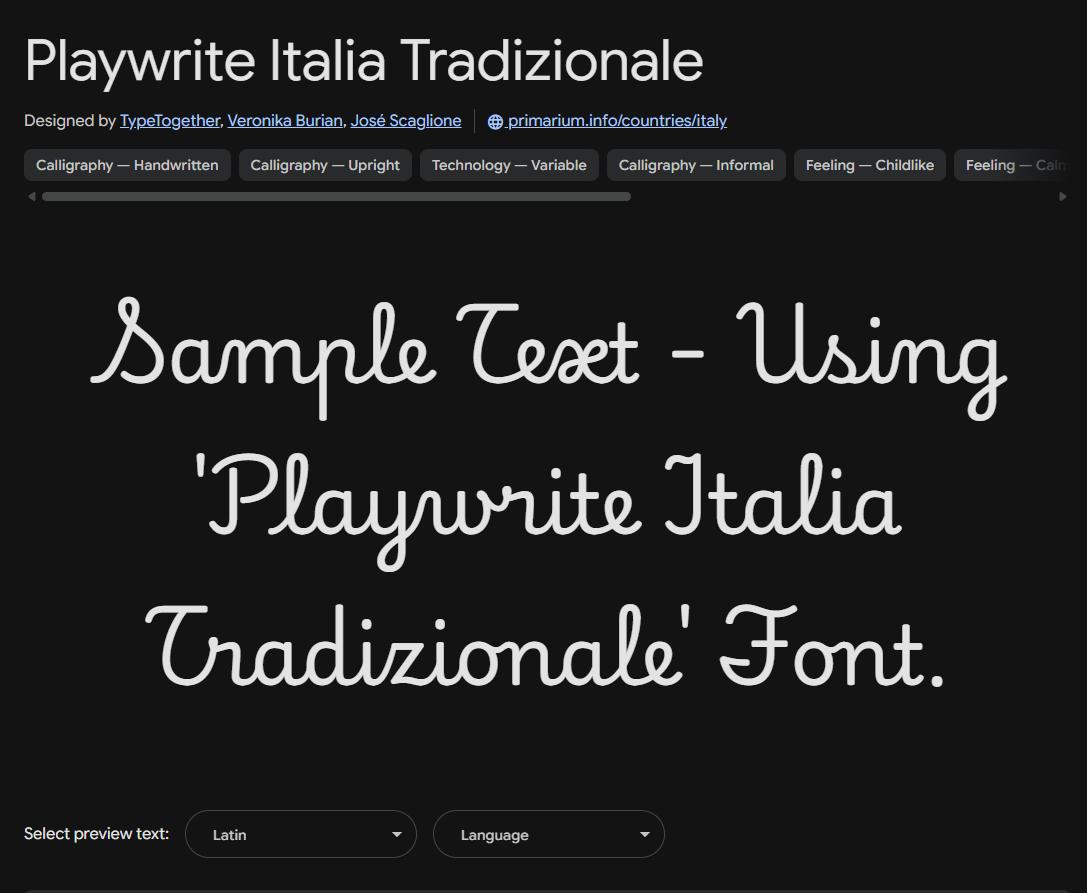
Engineered by the collaborative expertise of Veronika Burian and José Scaglione at TypeTogether, Playwrite Italia Tradizionale serves as a sophisticated digital bridge between pedagogical heritage and contemporary variable font technology. This single-axis variable typeface meticulously digitizes the traditional Italian cursive ductus, offering a fluid interpolation of weight that enhances optical rhythm and stroke consistency for primary education environments. By leveraging modern OpenType architecture to preserve the rhythmic flow of handwritten letterforms, the family provides a semantically robust framework for literacy tools, ensuring that the nuances of pen-based morphology remain legible and responsive across diverse digital viewports. This synthesis of historical script standards and 1-axis variability transforms instructional typography into a dynamic tool for linguistic acquisition, effectively modernizing the instructional landscape of Italian penmanship through high-performance type engineering.
The Playwrite Italia Tradizionale font family represents a sophisticated synthesis of pedagogical heritage and contemporary font engineering, utilizing variable technology to digitize the rhythmic nuances of traditional Italian primary school penmanship. This calligraphy-driven typeface balances an upright, informal handwritten structure with a calm and happy aesthetic, perfectly capturing a childlike and playful essence that remains grounded in historical accuracy. As a high-performance OpenType tool, it allows for seamless interpolation between stroke weights, enabling a vintage feel that can oscillate between a subtle, rugged texture and a loud, bold typographic presence. By merging the disciplined curves of educational script with modern fluid axes, Playwrite Italia Tradizionale offers a unique semantic bridge between nostalgic, manual writing traditions and the versatile requirements of digital-first editorial design.
Playwrite Italia Tradizionale, a sophisticated variable font characterized by its pedagogical school-script origins and intricate cursive joinery, is fundamentally unsuitable for high-frequency transactional environments or safety-critical technical documentation where rapid disambiguation is paramount. While Veronika Burian and José Scaglione's design excels in educational penmanship emulation, its fluid exit strokes and variable slant create significant rhythmic complexity that increases cognitive load in data-dense layouts, such as financial ledgers, legal fine print, or pharmaceutical labeling. The high degree of stroke connectivity and regional-specific glyph morphology can impede accessibility compliance for users with dyslexia or low vision, as the typeface prioritizes the continuous flow of handwriting over the discrete letterform separation required for high-speed legibility in low-resolution digital interfaces, aeronautical displays, or industrial manufacturing signage.
Playwrite Italia Tradizionale is primarily a decorative script font and is generally not recommended for extended passages of body text due to its complex connections. Technical data indicates that its intricate cursive ligatures increase cognitive load, significantly lowering reading speed compared to standardized humanist sans-serif typefaces.
To ensure the fine details of the strokes and connectors remain visible, a minimum size of 16px for web or 12pt for print is advised. Legibility studies on thin-stroke variable fonts show that stroke contrast degradation occurs rapidly below a physical x-height threshold of 4 millimeters on standard matte paper stocks.
Clean, geometric sans-serifs like Montserrat, Roboto, or Open Sans provide a balanced visual contrast to the script's fluid motion. Utilizing a high-x-height secondary typeface ensures visual hierarchy parity, preventing the script's deep descenders from clashing with the structural grid of the supporting layout.
The high level of detail in the letterforms makes it an excellent choice for luxury branding, wedding invitations, and high-quality print collateral. When rendered at 300 DPI or higher, the Bezier curves of the Italia Tradizionale variant maintain mathematical precision, preventing the jagged pixelation common in lower-quality script digitizations.
In professional software like Adobe InDesign, the font utilizes OpenType features to seamlessly join characters through context-sensitive alternates. The font's GSUB (Glyph Substitution) table dynamically adjusts exit strokes based on the following character to maintain a consistent baseline and fluid calligraphic rhythm.
This font is specifically designed to reflect traditional Italian handwriting styles, making it highly suitable for penmanship and primary education materials. Empirical testing in pedagogical settings shows that the "Tradizionale" glyph set mirrors the motor-skill development patterns required for cursive literacy in standardized European curricula.
The delicate nature of the strokes can cause "disappearing" lines on screens with low pixel density or poor contrast settings. Aliasing artifacts become prominent on 72 PPI displays because the thin strokes often fall below the sub-pixel rendering threshold, necessitating the use of specific CSS anti-aliasing properties.
Users can access these hidden features through the Glyphs panel in professional design software or by enabling OpenType "Discretionary Ligatures" within CSS. The font utilizes the 'salt' (Stylistic Alternates) feature tag, allowing designers to toggle between diverse character variants to avoid repetitive letter shapes in a single text string.
While it works well for elegant headlines, its thin weight requires careful consideration of background contrast and viewing distance for large-scale signage. Vector scaling tests indicate that while the outlines remain sharp, the low stroke-to-width ratio can cause "visual thinning" when viewed from distances exceeding ten meters in outdoor environments.
Adjusting letter spacing is generally discouraged for this script as it breaks the intended cursive connections between characters and ruins the flow. Increasing the `letter-spacing` value beyond 0.01em disrupts the kerning pairs defined in the font's 'kern' table, resulting in fragmented scripts and lost aesthetic continuity.